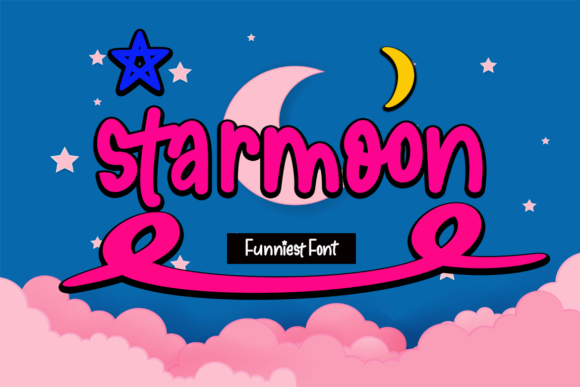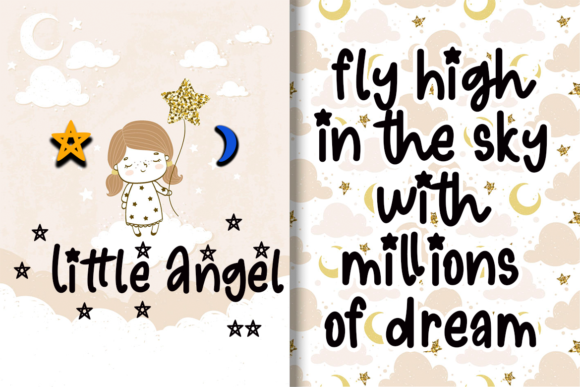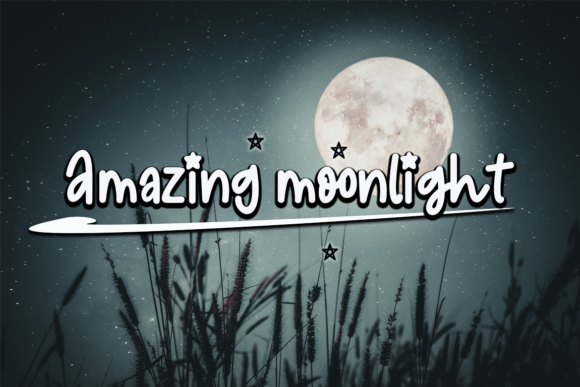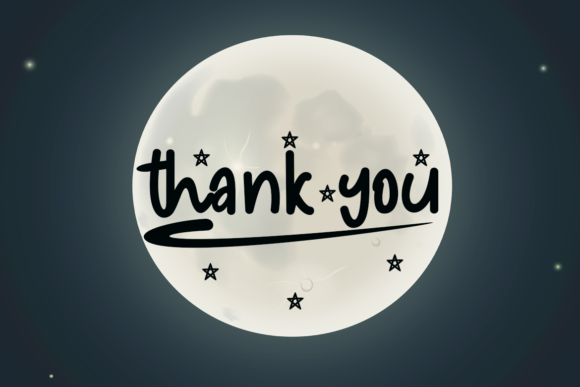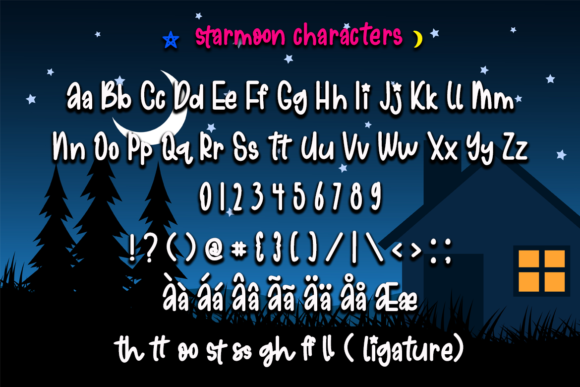
Starmoon Font
About Starmoon Font
Starmoon sounds like a delightful and whimsical font that can add a joyful and playful touch to various design projects. Here are some creative ideas on how to use Starmoon to make your designs stand out and capture the hearts of your audience:
1. Children’s Books: Use Starmoon to design titles, chapter headings, and illustrations for children’s books. Its cute and quirky style will bring characters and stories to life.
2. Greeting Cards: Create adorable and heartwarming greeting cards for birthdays, holidays, or special occasions using Starmoon’s joyful and expressive characters.
3. Party Invitations: Design fun and eye-catching party invitations for kids’ birthdays, baby showers, or themed celebrations with Starmoon to set the playful tone.
4. Website Graphics: Incorporate Starmoon into website graphics, banners, or icons to add a touch of whimsy and charm to your online presence.
5. Social Media Posts: Use Starmoon to create engaging and attention-grabbing social media posts, especially for posts targeting a younger audience.
6. DIY Craft Projects: Apply Starmoon to craft labels, stickers, and tags for DIY projects, scrapbooking, or handmade products.
7. Art Prints: Design adorable and colorful art prints featuring Starmoon’s unique characters and elements to decorate nurseries, bedrooms, or playrooms.
8. Party Decorations: Create lively and fun party decorations, such as banners, signs, and party favors, using Starmoon’s cute and quirky design.
9. Stickers and Emojis: Design digital stickers and emojis with Starmoon for use in messaging apps or as part of digital sticker collections.
10. Educational Materials: Use Starmoon to design engaging and playful educational materials, worksheets, and flashcards for young learners.
11. Stationery: Apply Starmoon to personalize stationery items like notepads, journals, or bookmarks with a touch of cuteness.
12. Product Packaging: Incorporate Starmoon into product packaging design for children’s products, snacks, or specialty items to make them visually appealing.
13. Apparel Design: Create adorable and charming T-shirt designs or graphics for kids’ clothing using Starmoon’s joyful characters.
14. Blog Graphics: Use Starmoon to create eye-catching blog post graphics, featured images, or section headers for a whimsical and inviting blog layout.
15. Digital Invitations: Design digital invitations for virtual events, online parties, or e-cards using Starmoon’s lively and joyful style.
16. Storybook Illustrations: Use Starmoon to create charming and captivating illustrations for storytelling or picture books.
17. Motivational Quotes: Pair Starmoon’s cute characters with motivational or inspirational quotes to create uplifting graphics.
18. Coloring Pages: Design printable coloring pages featuring Starmoon’s quirky elements for children or adults who enjoy coloring.
19. Branding for Kids’ Businesses: Use Starmoon to create a unique and captivating brand identity for businesses catering to children, such as toy stores or children’s clothing boutiques.
20. Digital Art: Explore digital art and illustrations using Starmoon’s adorable characters and playful elements.
In summary, Starmoon’s cute and quirky style offers a wealth of creative possibilities to add a joyful and lively touch to your designs. From children’s books to social media posts, from party invitations to educational materials, Starmoon’s charming and whimsical characters can bring a smile to the faces of your audience. Embrace the joyful nature of Starmoon and let its unique design make your creative ideas stand out and shine in any project!